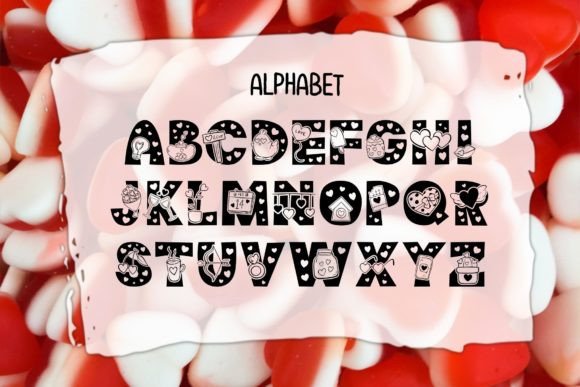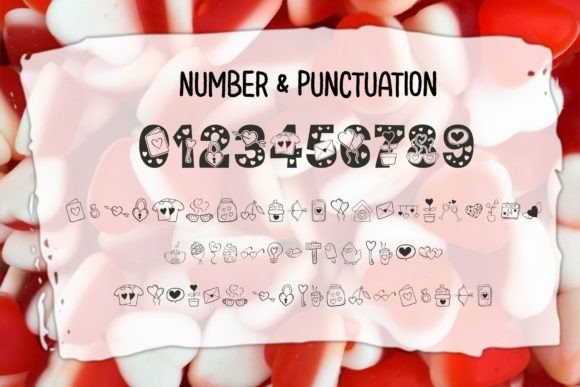
Spreading Love with Laughter: The Ultimate Guide to Funny Valentine Fonts
Valentine’s Day is just around the corner, and what better way to express your love and affection than with a dash of humor? A funny Valentine font can add a playful touch to your designs, making them stand out from the crowd. In this article, we’ll dive into the world of decorative fonts, specifically Funny Valentine, and explore its endless possibilities for creative projects.
What is Funny Valentine Font?
Funny Valentine is a decorative font designed to bring a smile to your face. This font is perfect for designers and crafters looking to add a touch of whimsy and playfulness to their work. Its unique and quirky style makes it an excellent choice for Valentine-themed projects, but its versatility extends far beyond that.
Perfect for Valentine-Themed Projects
Valentine’s Day is a time for love, romance, and laughter. With Funny Valentine font, you can create eye-catching designs that capture the lighthearted spirit of the holiday. Use it to create:
- Valentine’s Day cards and invitations
- Funny Valentine’s Day memes
- Playful gift tags and wrapping paper
Beyond Valentine’s Day: Endless Creative Possibilities
While Funny Valentine font is perfect for Valentine-themed projects, its uses extend far beyond that. This decorative font can be used for:
- Book covers: Add a playful touch to your romance novel or children’s book cover.
- Posters: Create eye-catching posters for events, promotions, or advertisements.
- Packaging: Stand out on store shelves with unique and playful packaging designs.
- Merchandise: Design fun and quirky merchandise, such as t-shirts, mugs, or tote bags.
- Logotypes: Create a memorable brand identity with a custom logotype.
Why Choose Funny Valentine Font?
So, what makes Funny Valentine font so special? Here are just a few reasons why designers and crafters love this font:
- Playful and whimsical: Add a touch of humor and lightheartedness to your designs.
- Unique and eye-catching: Stand out from the crowd with a font that’s sure to grab attention.
- Versatile: Use it for a wide range of creative projects, from Valentine’s Day designs to book covers and merchandise.
Tips for Using Funny Valentine Font
To get the most out of Funny Valentine font, here are a few tips to keep in mind:
- Use it sparingly: While Funny Valentine font is playful and fun, it can be overwhelming if used too much. Balance it with simpler fonts for a cohesive look.
- Experiment with colors: Play around with different colors and color combinations to add depth and interest to your designs.
- Mix and match: Combine Funny Valentine font with other fonts and graphics to create a unique and eye-catching design.
Funny Valentine font is a versatile and playful decorative font that’s perfect for designers and crafters looking to add a touch of humor and whimsy to their work. With its endless creative possibilities, it’s an excellent choice for Valentine-themed projects, book covers, posters, packaging, merchandise, logotypes, and much more. So why not give it a try and spread some love and laughter with your designs?